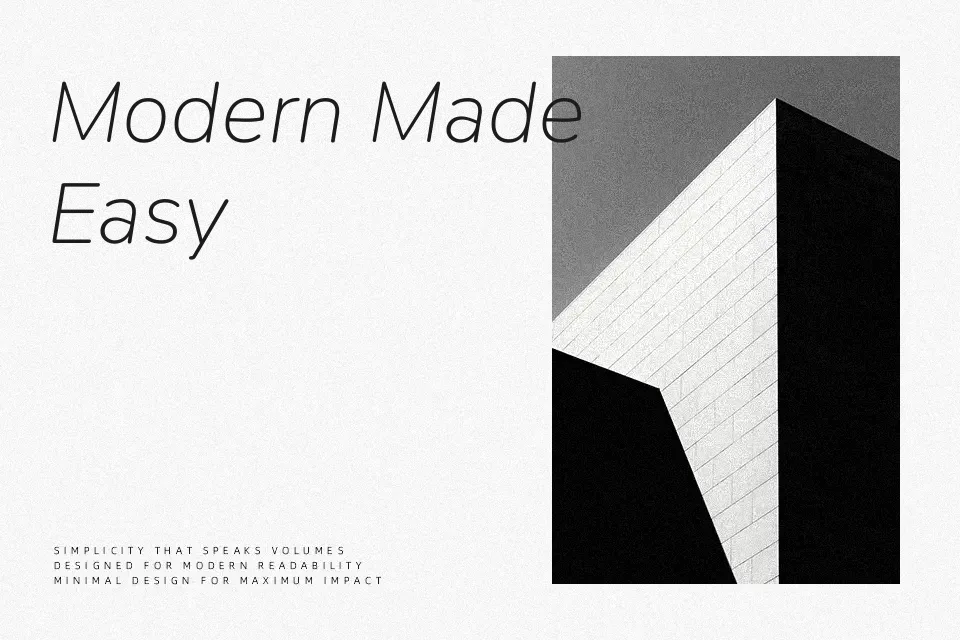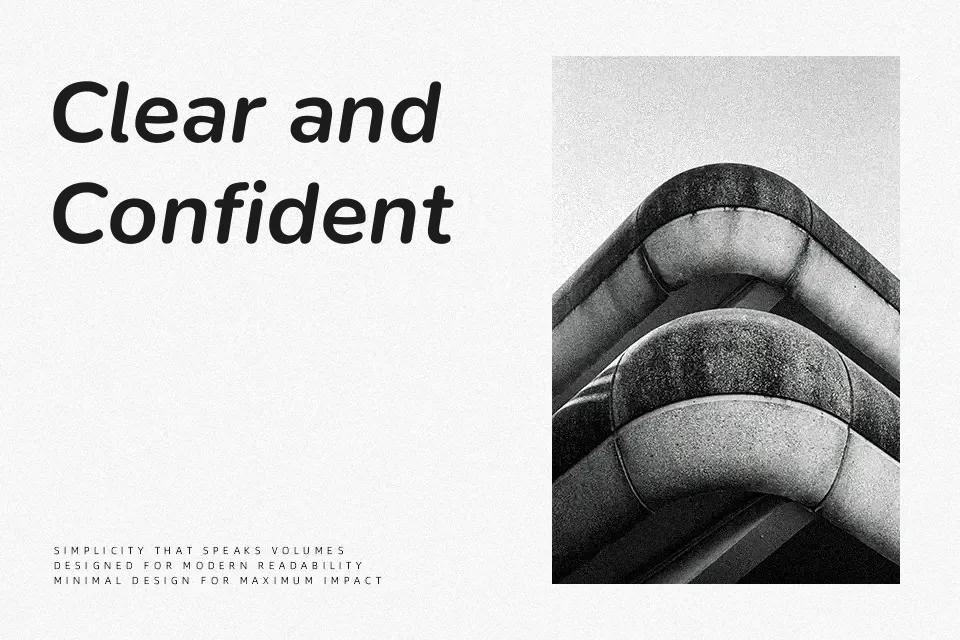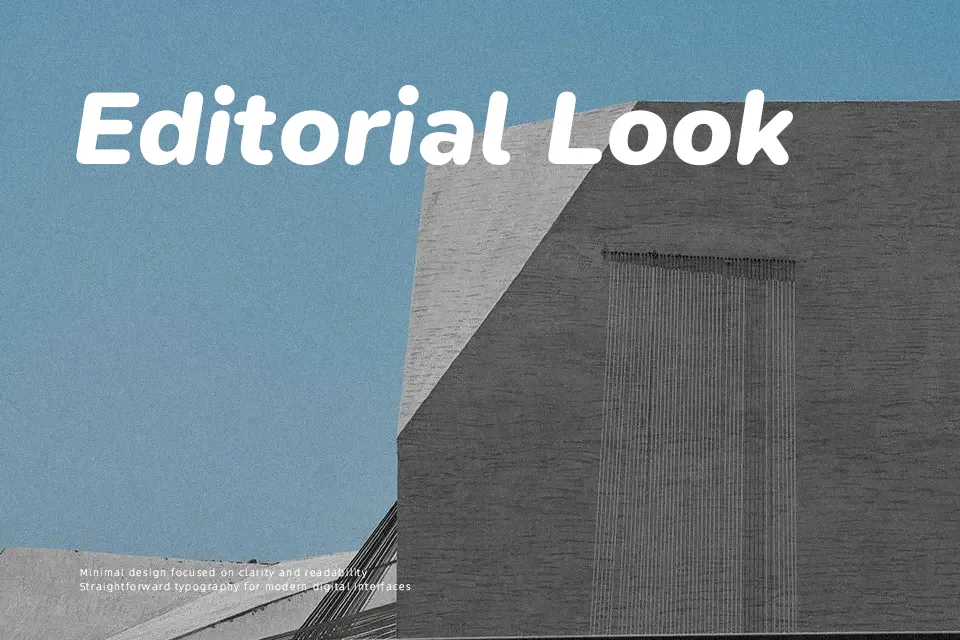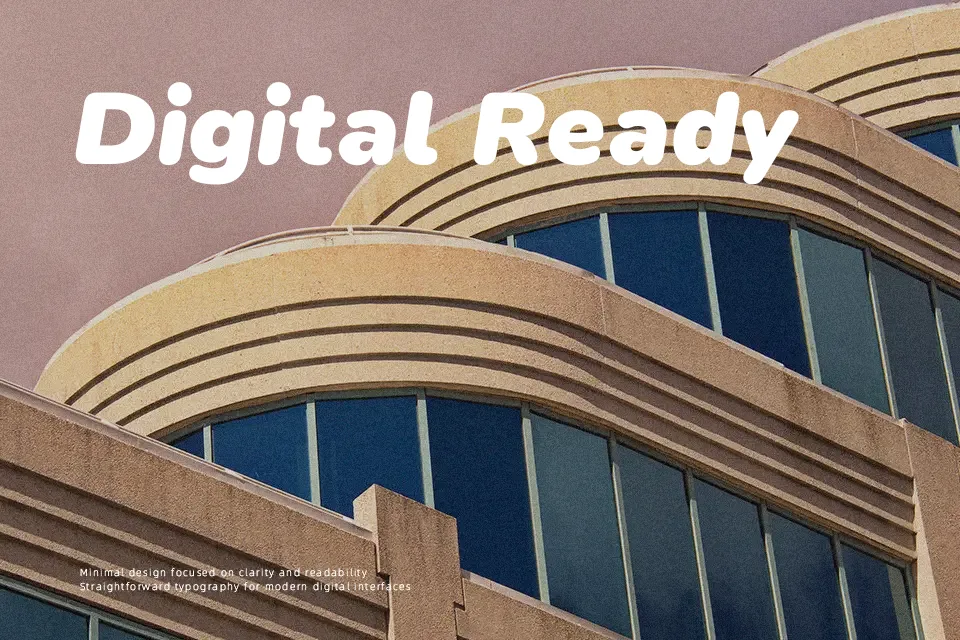
SN Pro Font
Designed by Tobias Whetton, Supernotes
SN Pro is a friendly sans serif with soft, rounded terminals, moderate x-height, and carefully balanced weights that stay even from Thin through Black. Spacing feels open enough for long paragraphs, yet compact enough for sidebars, menus, and code-adjacent text, which suits Markdown-heavy layouts and technical writing. Because it is based on Nunito but pushed toward crisper rhythm and clearer shapes, it reads more grown-up than many “cute” rounded fonts while still feeling approachable. It works especially well for interfaces, documentation, and writing tools; for highly expressive branding or editorial headlines that need strong personality, some designers may find it too restrained.
UI text in note-taking or productivity apps
Technical documentation and knowledge bases
Readable headings and labels in dashboards
Markdown-focused blogs and writing tools
Highly decorative or experimental display typography
Expressive fashion or luxury branding
Very narrow body text in print at tiny sizes
Projects needing strong handwritten character
Perfect for body text, branding, and headline, with a calm and rounded style.